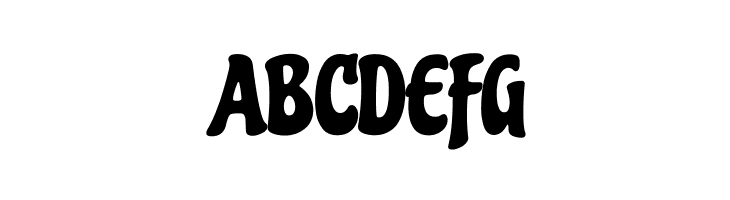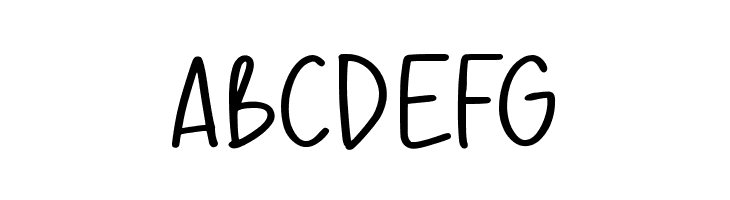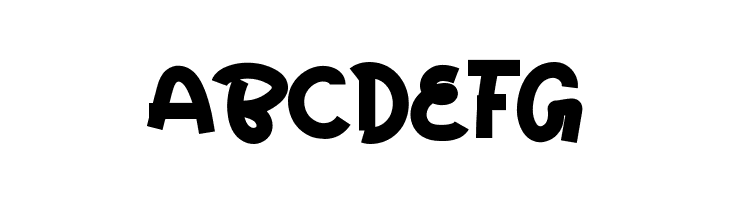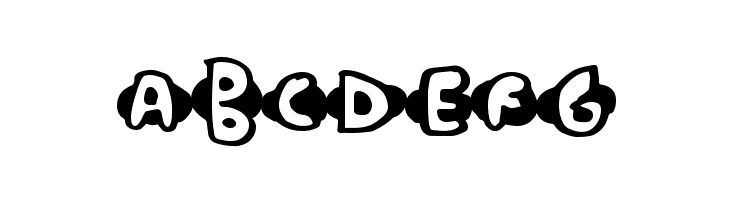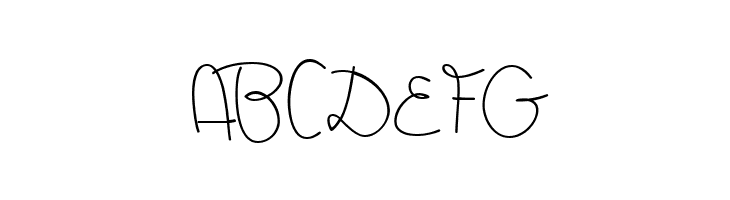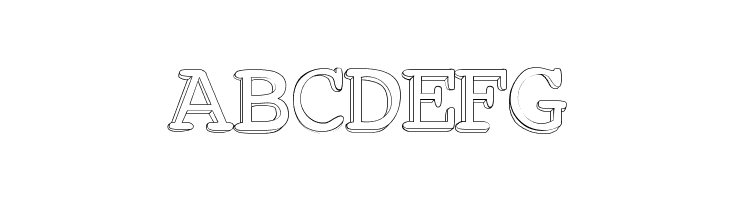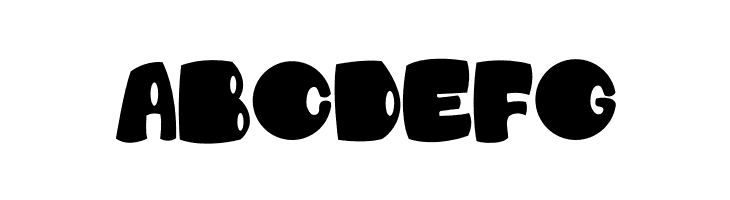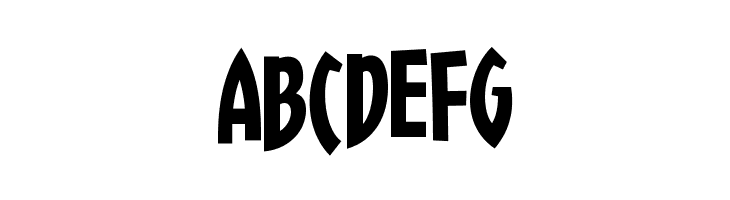
A bold, playful font with bubble-like characters and thick outlines.
( Fonts by Roland Huse - rolandhuse.com )
A playful and whimsical script font with smooth, rounded strokes.
( Fonts by Typodermic Fonts )
A bold, playful font with a hand-drawn, artistic style.
A playful, bold font with rounded, inflated characters ideal for informal designs.
( Fonts by Mocha Frappuccino )
A bold, playful sans-serif with hand-drawn, cartoonish character.
( Fonts by YolandaBomfim )
A playful, bold font with rounded, bubbly characters and a whimsical flair.
A playful, casual handwritten font with smooth, rounded strokes.